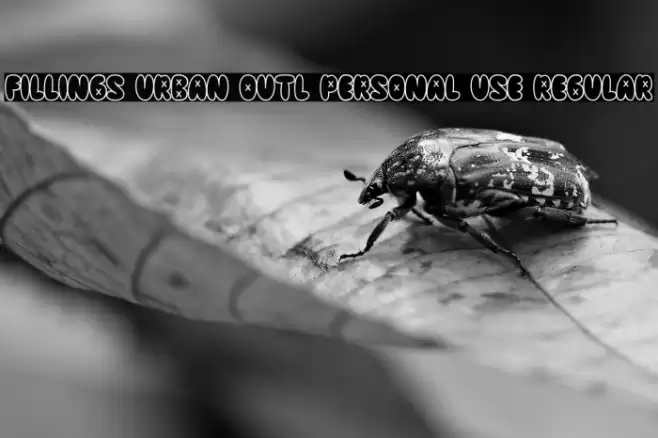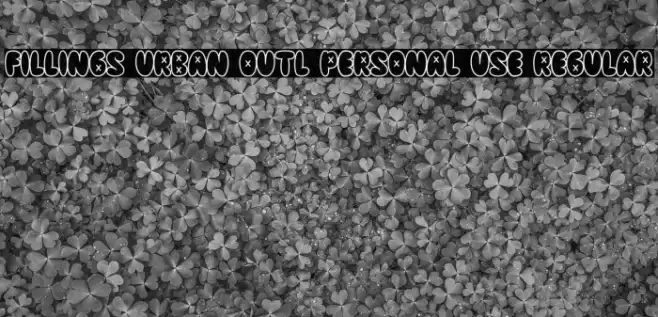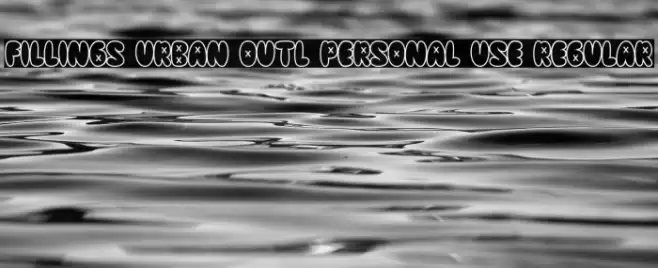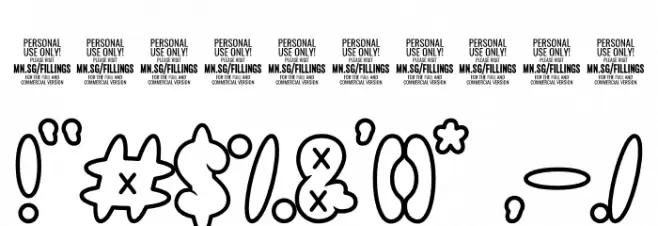
Fillings Urban Outl PERSONAL USE Regular Font
This playful and bold font features a unique outline style with a bubble-like appearance. Each character is outlined with a thick stroke, giving it a cartoonish and fun vibe. The letters are rounded and have a consistent thickness throughout, creating a cohesive look. The font includes uppercase and lowercase letters, numbers, and a variety of special characters. Its whimsical design is perfect for projects that require a touch of creativity and lightheartedness. The spacing between characters is normal, ensuring readability while maintaining its playful aesthetic.
A playful, bold outline font with a bubble-like, cartoonish style from Regular fonts.
- Proposed Projects: Ideal for children's books, playful branding, party invitations, and creative posters.
- Use Case: Logos, Posters, Headlines